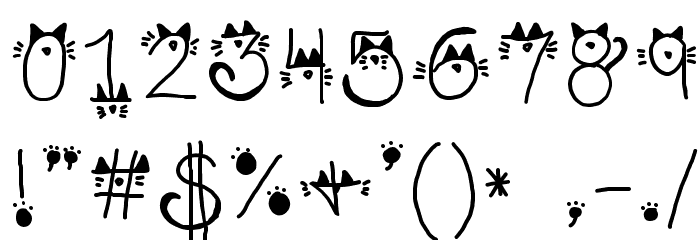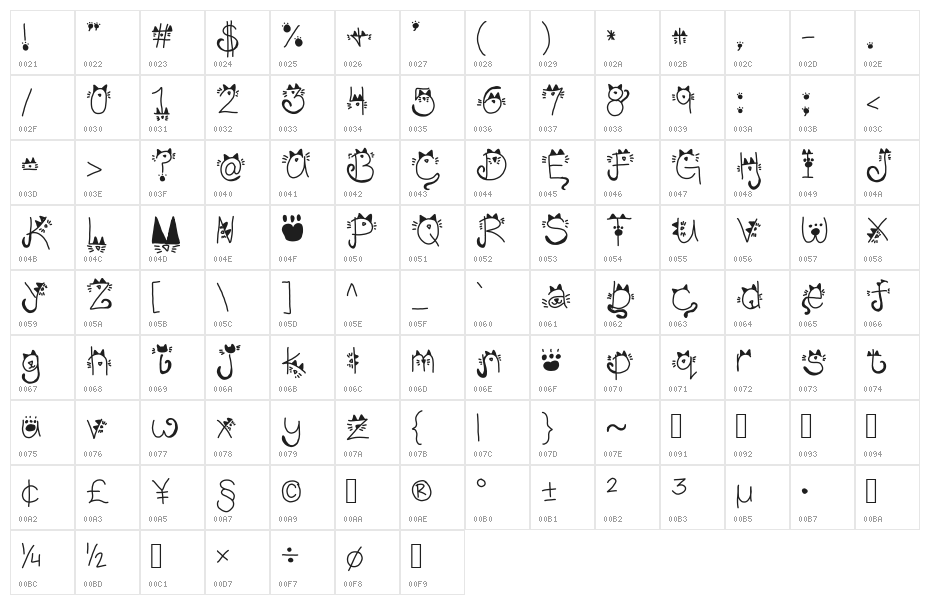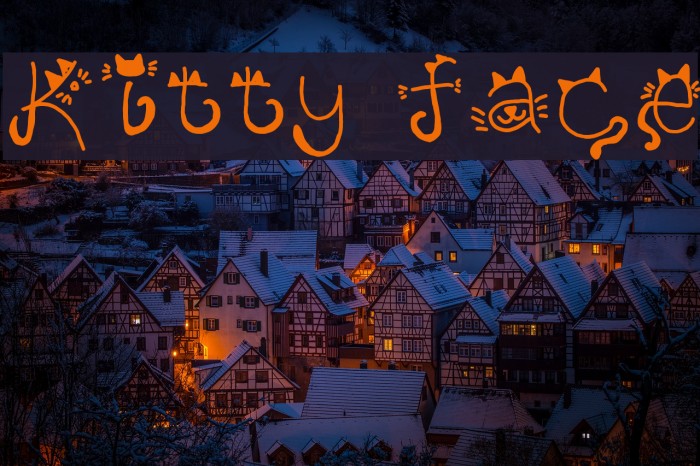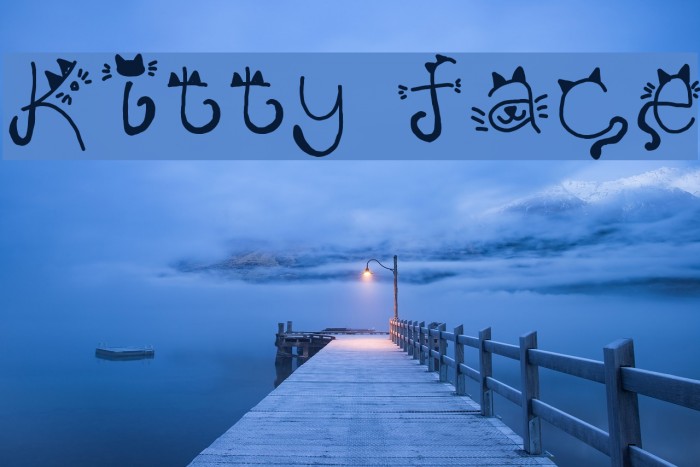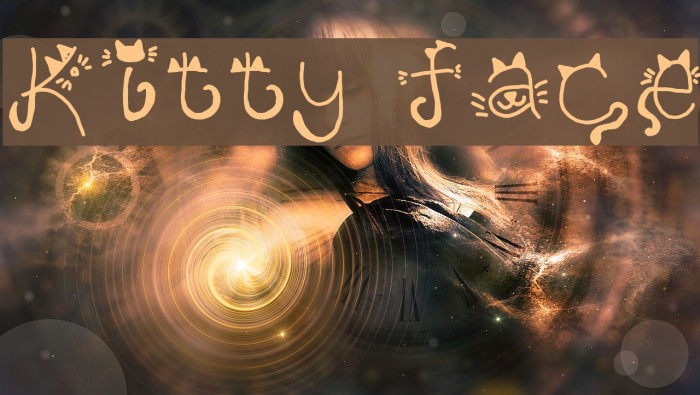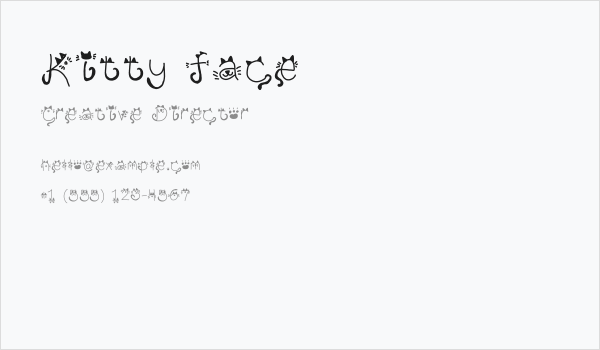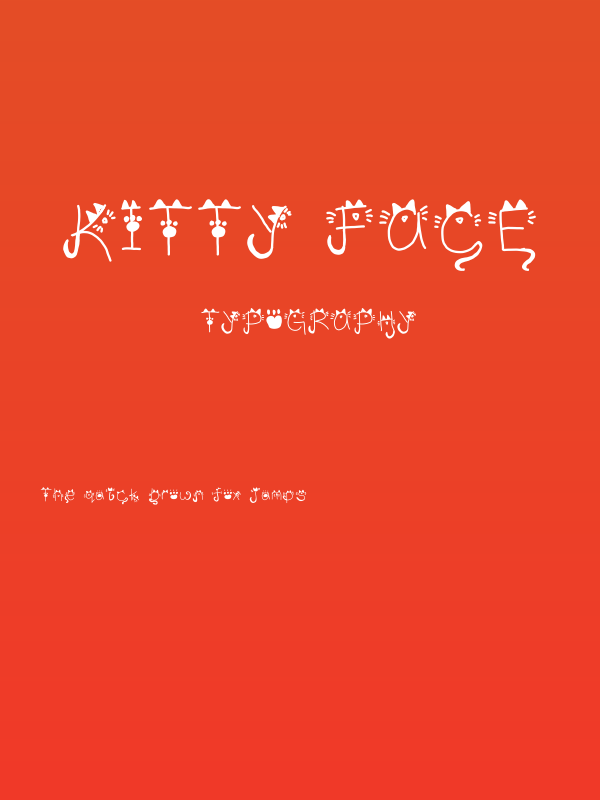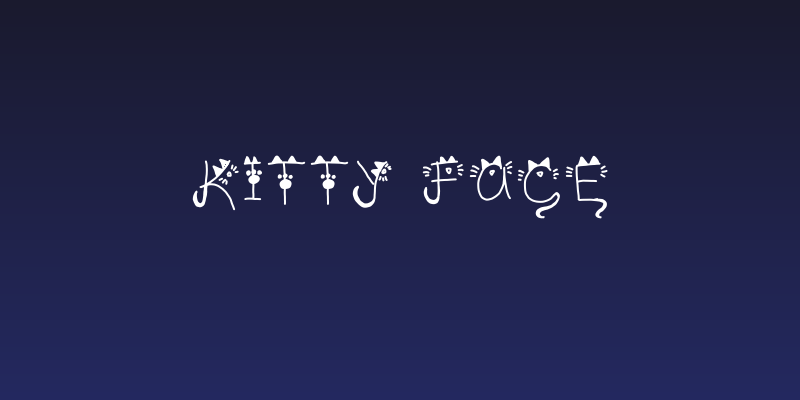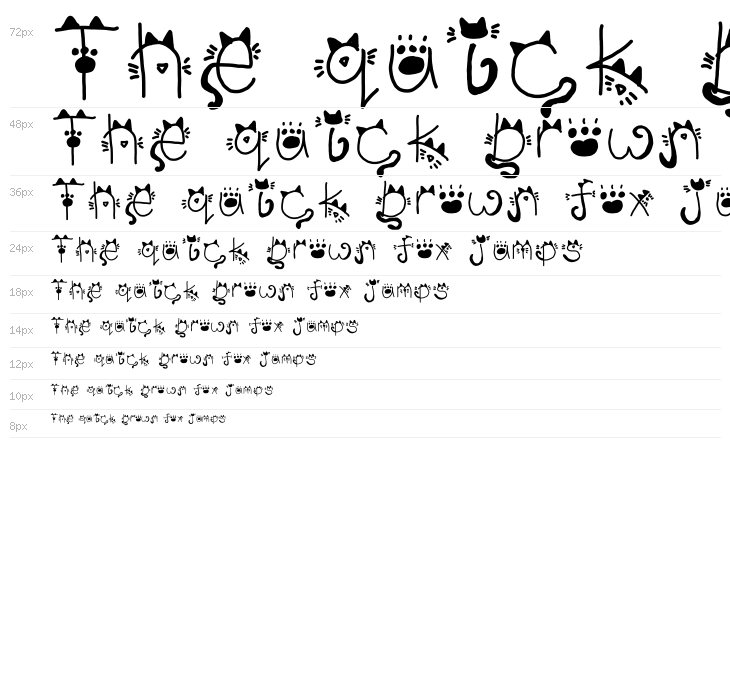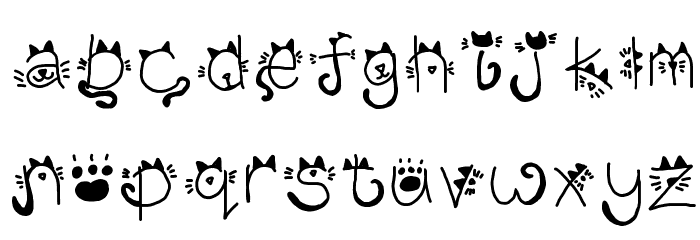
Kitty face Font
Kitty face Description
This playful and whimsical font features cat-themed embellishments integrated into each character. The letters are adorned with cat ears, whiskers, and tails, creating a fun and unique visual style. The font maintains a consistent line thickness, contributing to a cohesive appearance. Its decorative elements make it ideal for projects that require a lighthearted and creative touch. The numbers and special characters also incorporate feline motifs, ensuring a uniform theme throughout the character set.
| Overall Style | Whimsical, Playful |
| Proposed Projects | Ideal for children's books, pet-related branding, playful invitations, and themed party decorations. |